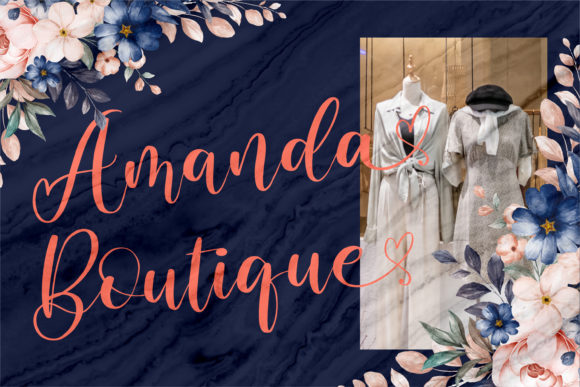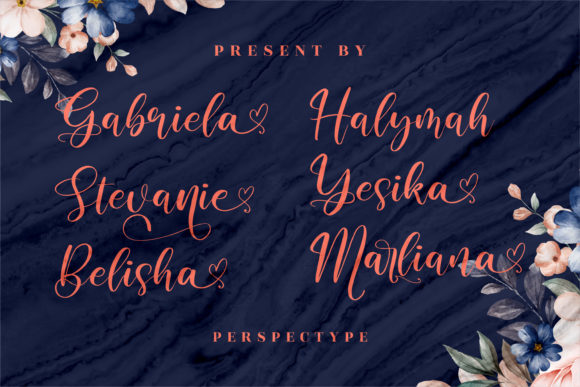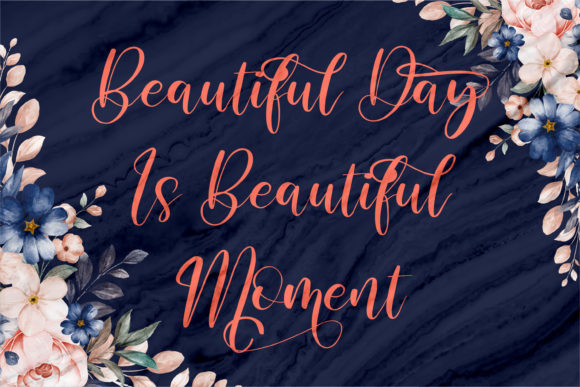
Introduction to Muttiara Pagi Font
Muttiara Pagi is a beautiful and refined script font.
It has a classy, elegant and modern look that can be used for logos, branding, invitations, stationery, wedding designs, social media posts, and much more This font is PUA encoded which means you can access all of the beautiful glyphs and swashes with ease.
Key Features of Muttiara Pagi Font